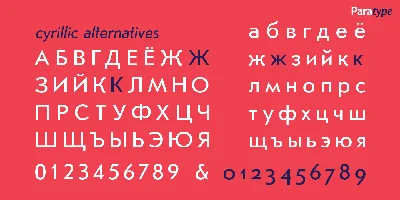
Top Font Recommendations for Logo Design: Crafting a Memorable Brand
A logo is more than just a visual mark—it’s the cornerstone of a brand’s identity. Fonts play a crucial role in determining how your logo communicates your brand’s values, tone, and personality. The right typeface can make your logo stand out and resonate with your audience, while the wrong one can send mixed signals. In this blog, we’ll explore the best font types for logo design and offer tips for selecting the perfect one.
Why Fonts Matter in Logo Design
Fonts shape how people perceive your brand. A sleek and minimalist font may signal innovation and modernity, while a serif font might evoke trust and tradition. Here’s why choosing the right font is critical:
- Visual Communication: Fonts convey emotion and set the tone for how your brand is perceived.
- Readability: A well-chosen font ensures clarity and makes your logo versatile across mediums.
- Brand Differentiation: Unique typography helps distinguish your brand from competitors.
- Memorability: A distinctive font makes your logo easier to recall, boosting brand recognition.
Popular Font Styles for Logo Design
Different styles of fonts suit different types of businesses and brand personalities. Here are some popular options to consider:
1. Serif Fonts
Serif fonts, characterized by small lines or strokes at the ends of characters, convey tradition, reliability, and sophistication. They’re ideal for brands that want to exude trust and heritage, such as financial institutions or luxury goods.
- Examples: Times New Roman, Garamond, Georgia
2. Sans-Serif Fonts
Sans-serif fonts lack decorative strokes, giving them a clean and modern look. They’re versatile and work well for tech companies, startups, or brands that want a contemporary feel.
- Examples: Helvetica, Futura, Open Sans
3. Script Fonts
Script fonts mimic handwriting and are perfect for brands looking to evoke elegance, creativity, or a personal touch. These are popular for beauty, fashion, and wedding-related businesses.
- Examples: Pacifico, Great Vibes, Allura
4. Display Fonts
Display fonts are bold and attention-grabbing, making them suitable for brands that want to stand out with unique, artistic designs. They work best for logos with minimal text.
- Examples: Lobster, Bebas Neue, Impact
5. Custom Fonts
For a truly unique logo, custom fonts can be designed to reflect your brand’s individuality. While this requires more effort and resources, the result is a logo that’s entirely your own.
Tips for Choosing the Perfect Font for Your Logo
Selecting the right font involves more than just aesthetics. Here are some tips to guide you:
Understand Your Brand Personality
Ask yourself what message you want your logo to communicate. Is your brand playful, professional, elegant, or edgy? Choose a font that aligns with your values and tone. -
Keep It Simple
Overly complex fonts can make your logo hard to read, especially at smaller sizes. Aim for clarity and legibility. -
Consider Versatility
Your logo will appear on various platforms, from business cards to billboards. Ensure the font works well across all mediums and sizes. -
Pair Fonts Strategically
If your logo includes multiple text elements, combine complementary fonts to create visual interest. For example, pair a bold sans-serif font with a subtle serif font. -
Test Across Platforms
Preview your logo on different backgrounds, colors, and devices to ensure the font looks consistent and professional.
Final Thoughts
Fonts are a powerful tool in logo design, helping to define your brand’s identity and connect with your audience. Whether you choose a classic serif font, a modern sans-serif, or a playful script, the key is to align your choice with your brand’s values and vision.
Invest time in exploring various options, and don’t hesitate to experiment. A well-designed logo with the right font can set your brand apart and leave a lasting impression.